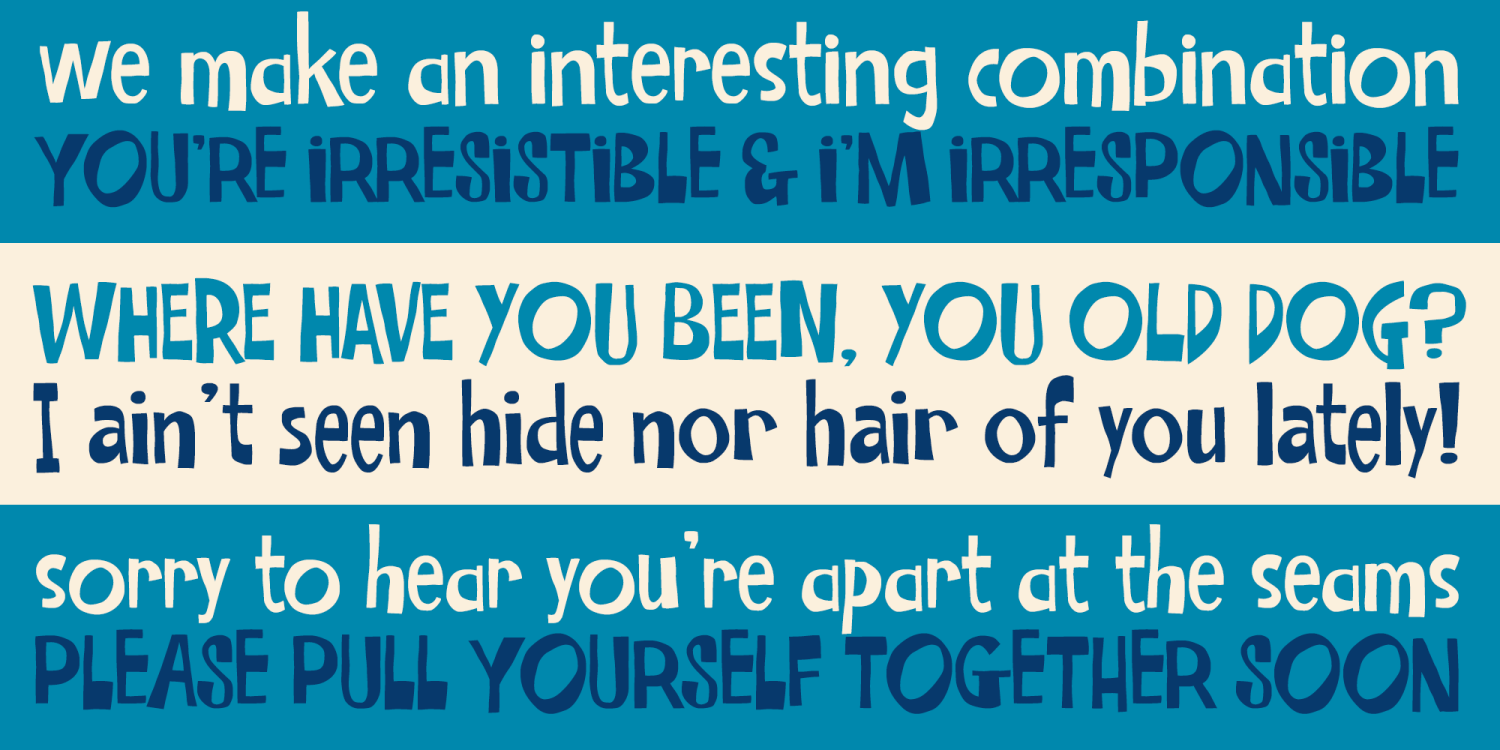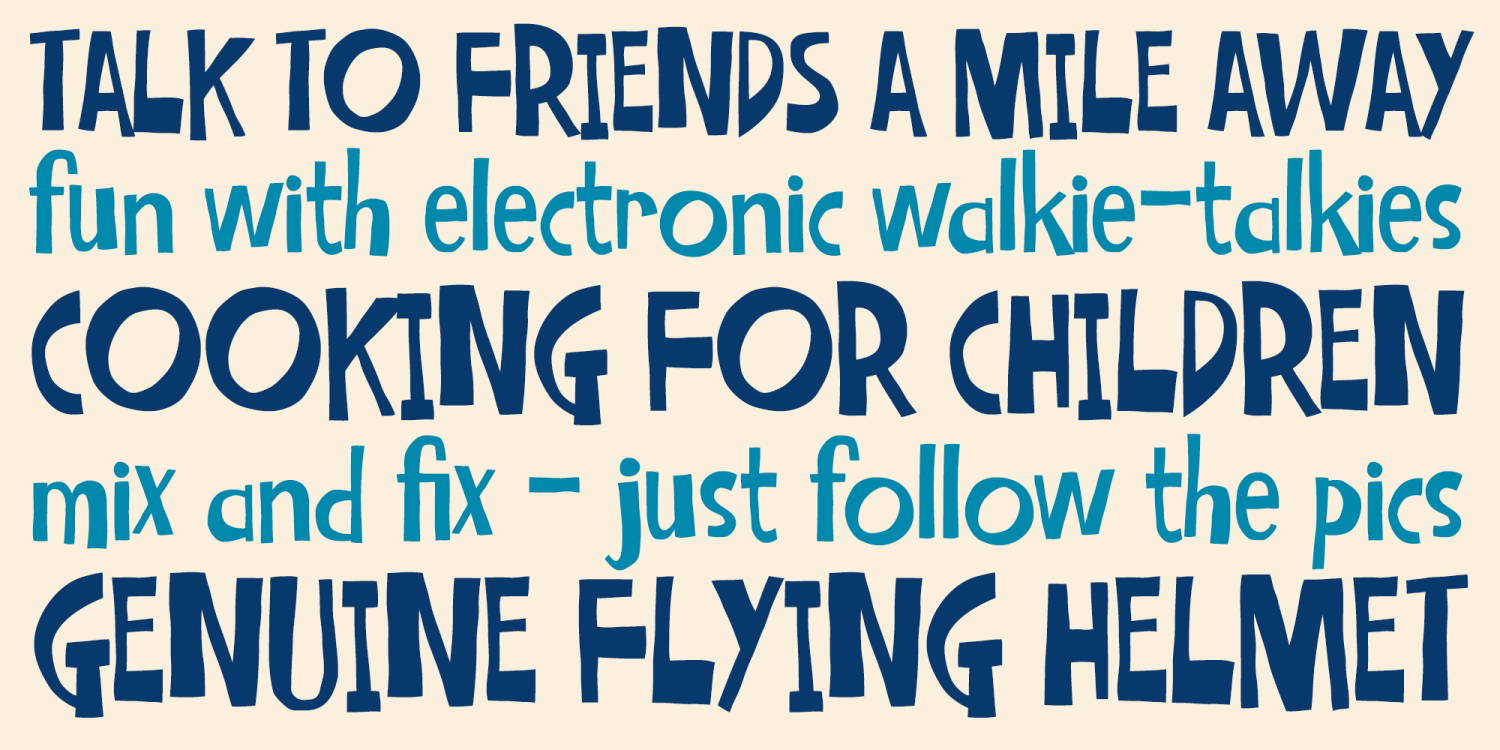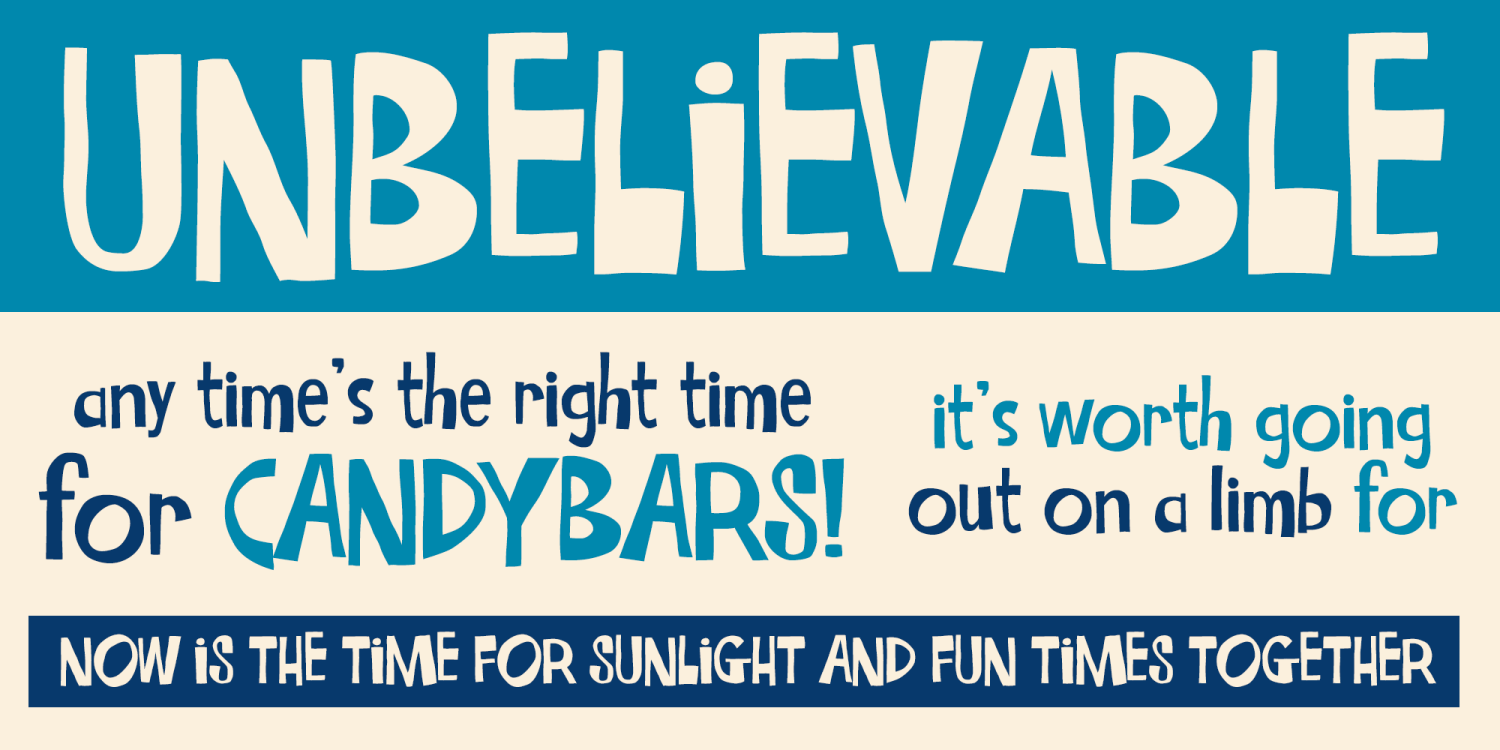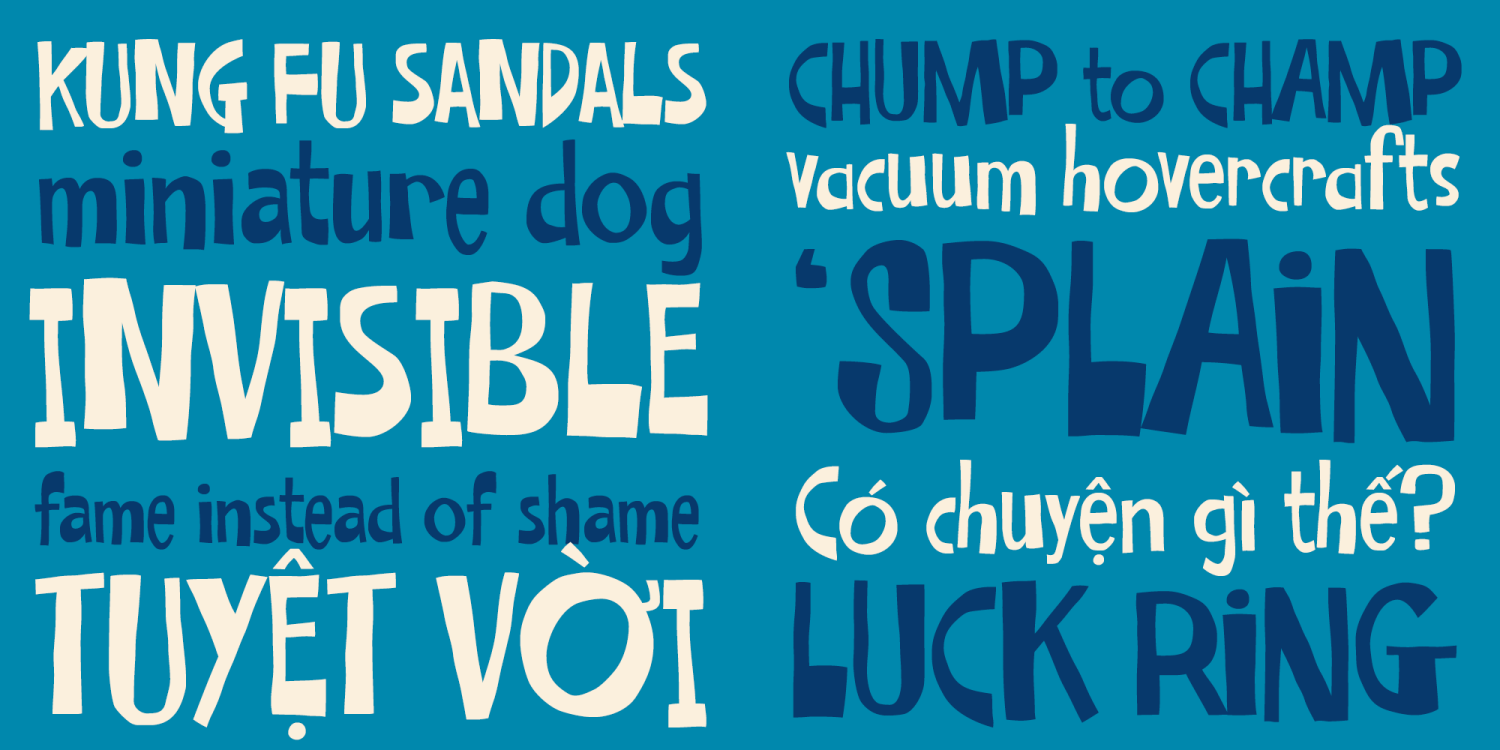
About Philly Joe
Looking for an offbeat font duo that is animated, loveably awkward, and friendly to the eyes? You’ve just found it in Philly Joe and his Bro. These hand drawn fonts have just the right amount of appeal for children’s books, animated films,…